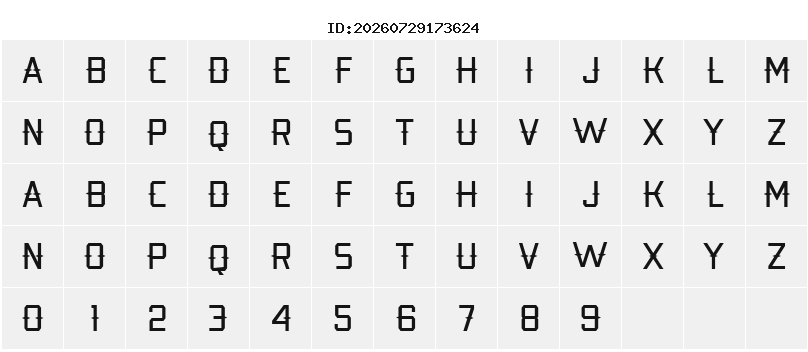
Kobarapi Preview
• Font Name: Kobarapi
• Full Font Name: Kobarapi
About Kobarapi.ttf
Kobarapi.ttf is a modern, elegant sans-serif font designed for ultimate readability and visual harmony. Perfect for branding, headlines, web design, and print materials.